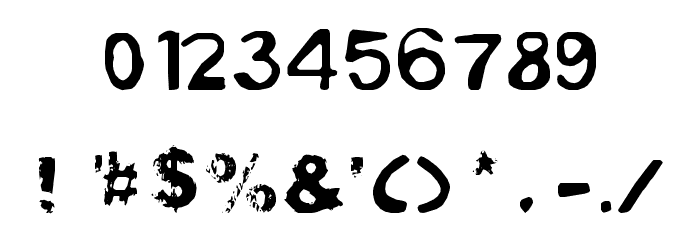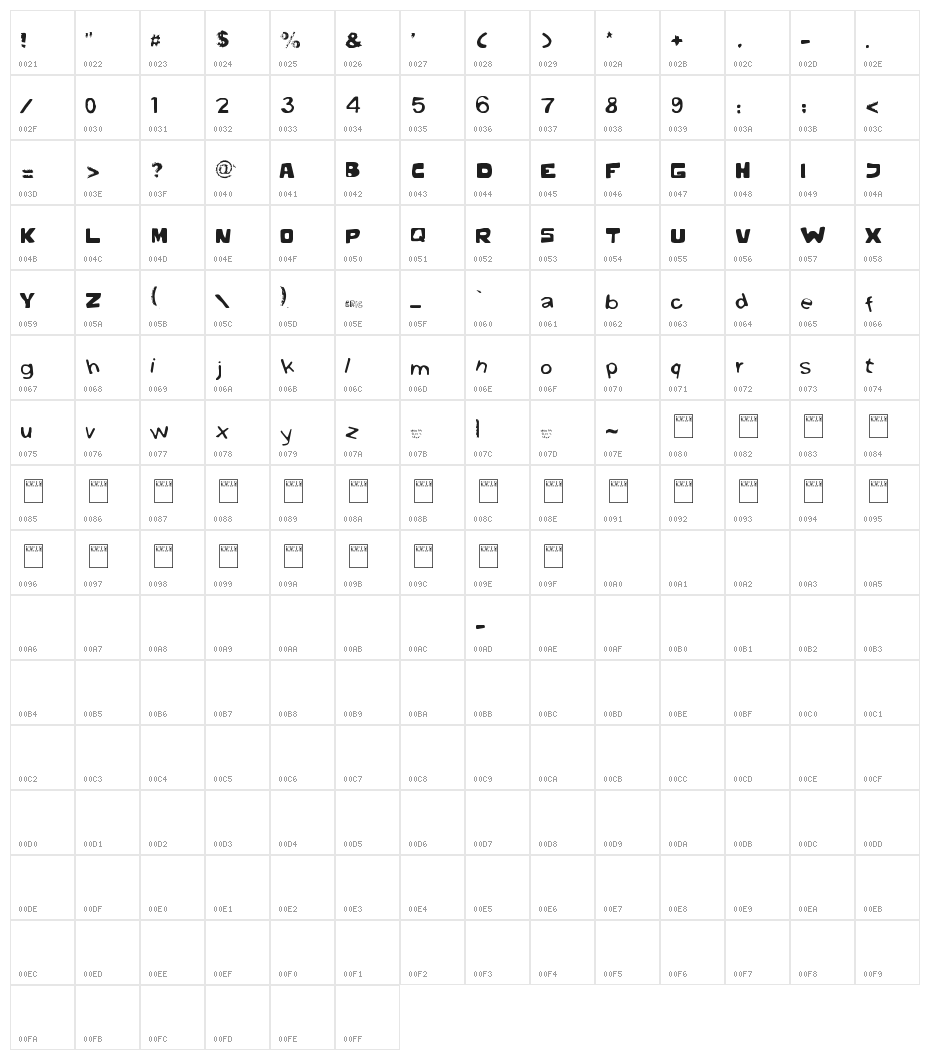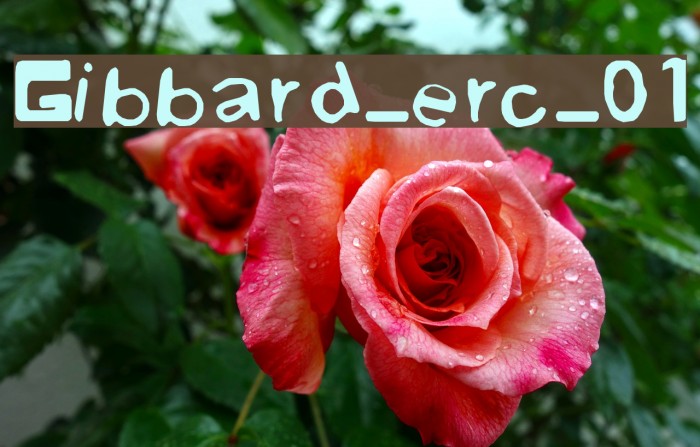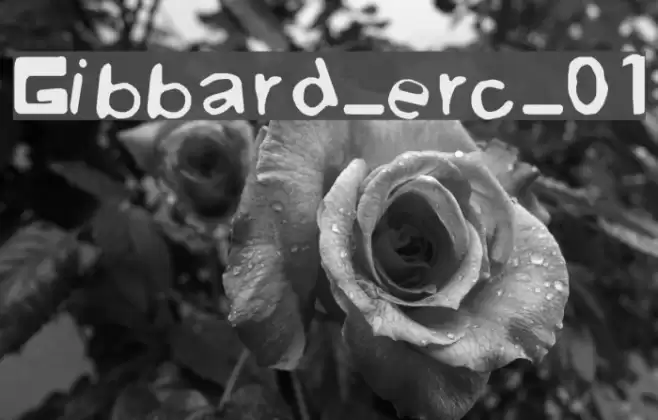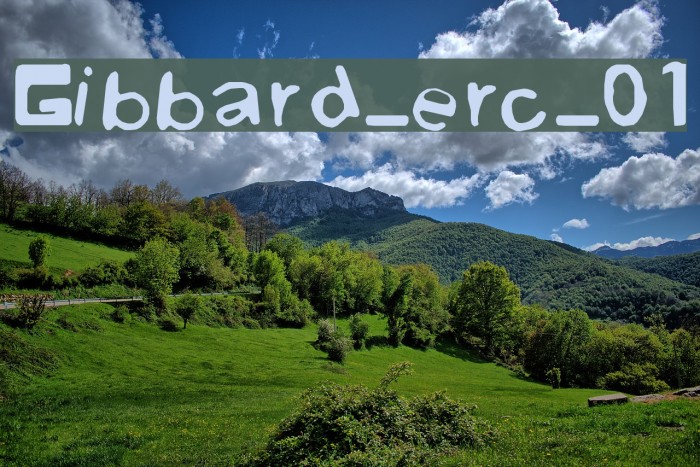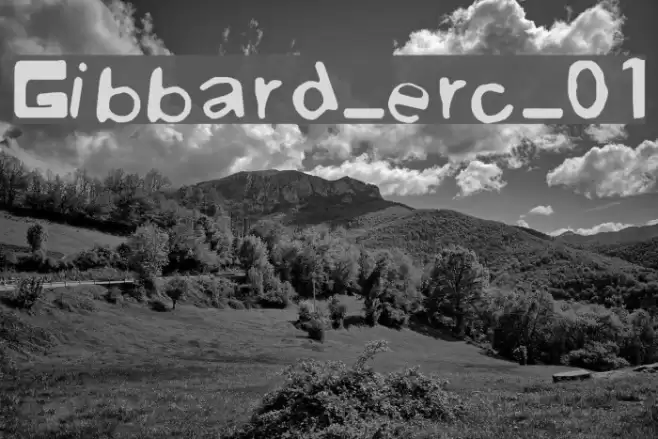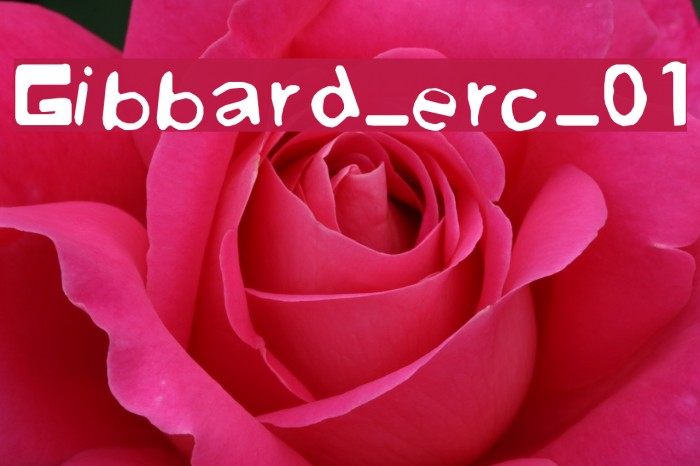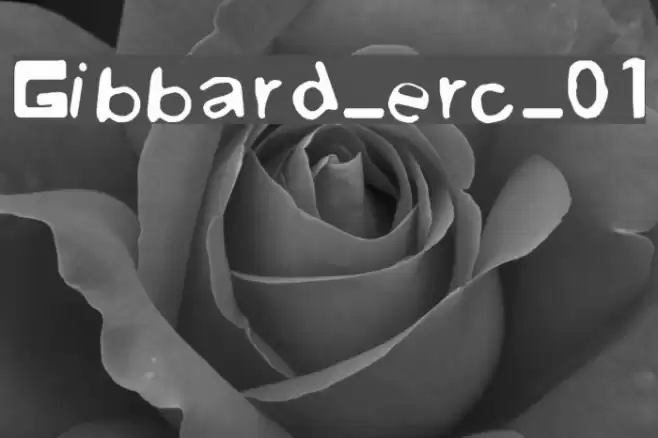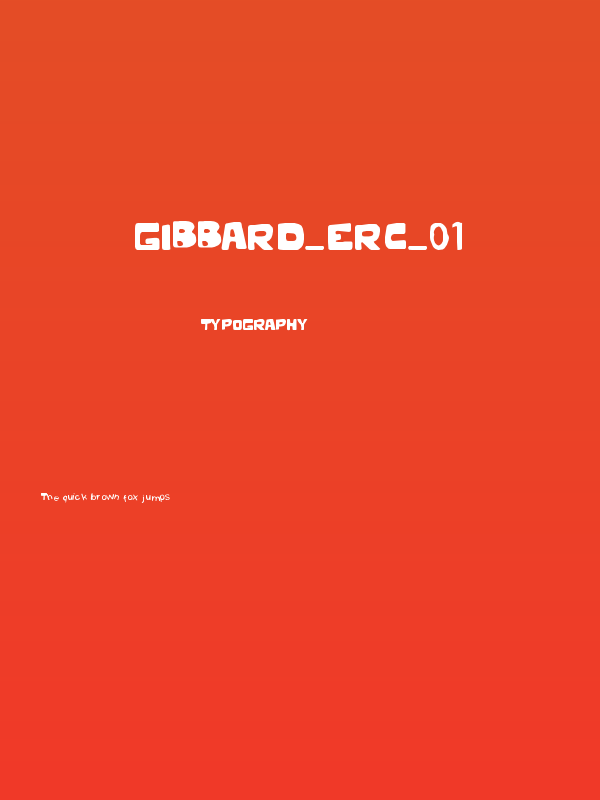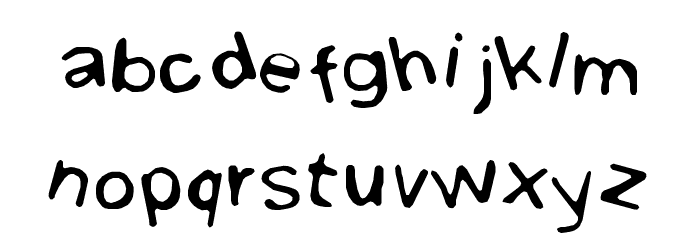
Gibbard_erc_01 Font
Gibbard_erc_01 Description
This font features a bold and playful design with a slightly distressed appearance, giving it a unique and artistic flair. The uppercase letters are robust and chunky, while the lowercase letters maintain a more casual and handwritten style. The numbers are consistent with the boldness of the uppercase letters, ensuring readability. Special characters are creatively designed, adding to the font's overall quirky and informal aesthetic. This font is ideal for projects that require a fun and engaging look, such as children's books, posters, or creative branding.
| Overall Style | Playful, Artistic, Quirky |
| Proposed Projects | Ideal for children's books, posters, creative branding, and playful designs. |